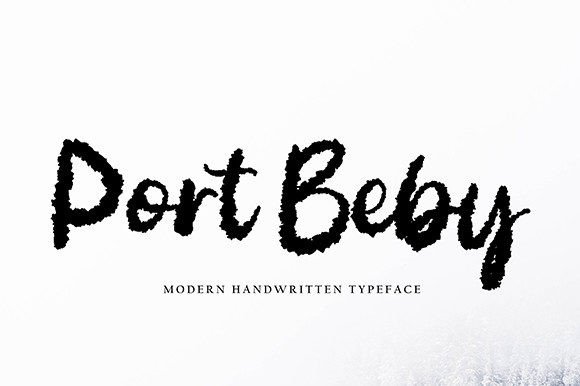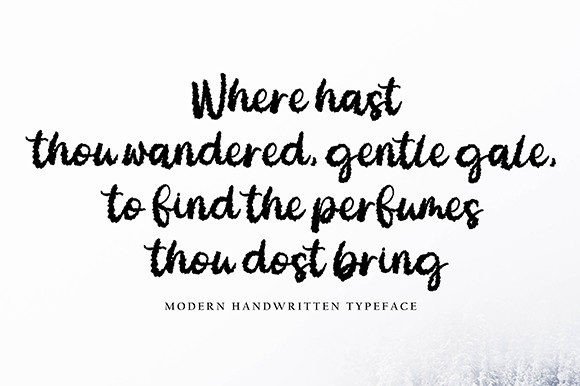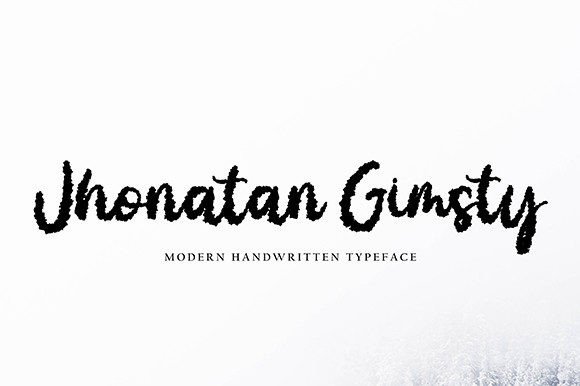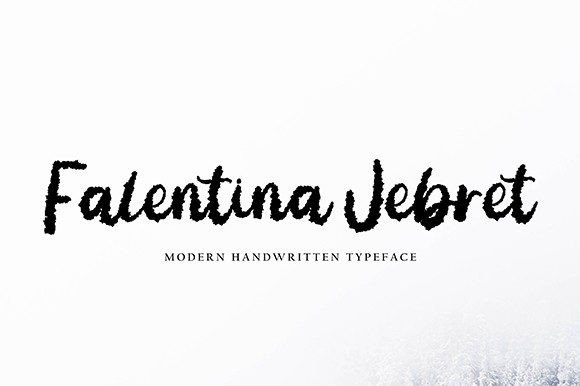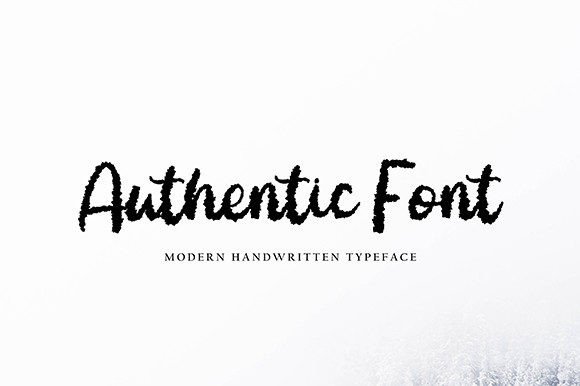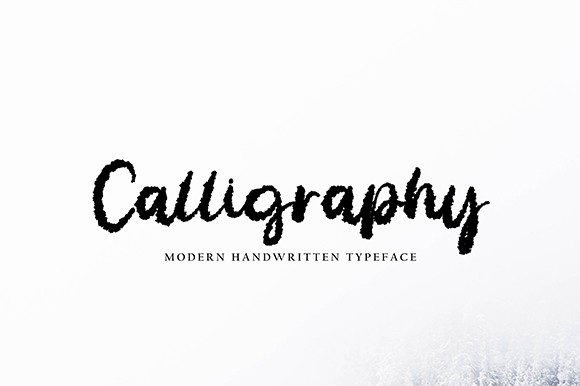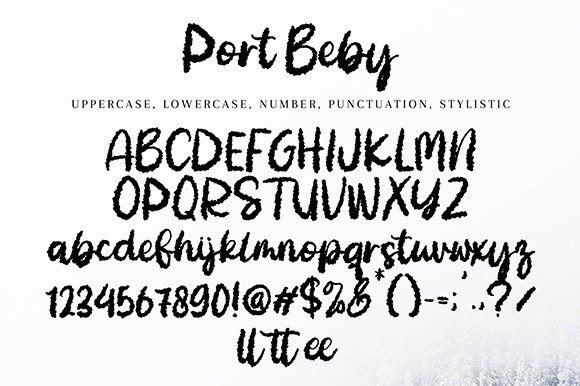
Port Beby Font
A Fun and Quirky Handwritten Script
Port Beby is a playful handwritten font that brings a dose of personality to any project. Its casual strokes and quirky letterforms make it feel friendly and unique. Whether you’re designing for kids, creative brands, or personal projects, Port Beby is a great way to stand out.
This font captures the charm of authentic handwriting while staying neat and professional. It feels approachable and full of character.
Port Beby is a versatile font you’ll reach for again and again. It works beautifully on greeting cards, children’s book covers, and birthday invitations. The fun style makes any message feel bright and cheerful.
Use it for logos, stickers, and product packaging if you want your brand to feel friendly and modern. Port Beby helps you create a visual identity that’s casual and memorable.
It also shines on social media graphics and blog headers. Whether you’re designing quotes, promotions, or event announcements, this font ensures your content feels inviting and unique.
You can even use Port Beby for classroom materials, labels, and planners to add a little extra joy to everyday tasks.
Clear, Fun, and Easy to Read
Despite its playful character, Port Beby is clear and legible in any size. The balanced spacing between letters keeps your text tidy and professional while still feeling relaxed.
For a clean look, pair Port Beby with a simple sans-serif font. Use it for titles and accents, and the sans-serif font for supporting text. This creates a balanced layout that feels modern and fresh.
To make Port Beby shine, use light backgrounds and bright colors. Soft pastels, warm yellows, or sky blue work beautifully with this font’s cheerful style.
When designing invitations or event materials, consider adding playful illustrations or doodle elements. This complements the handwritten feel and makes your designs stand out even more.
On social media, leave plenty of white space so Port Beby’s unique shapes can take center stage. Keep your layout simple and clean to maintain readability.
Think about the feeling you want to create. Port Beby is perfect for projects that need to feel happy, relaxed, and approachable.
Port Beby isn’t just a handwritten font—it’s a creative tool that helps you express fun and positivity. From logos to personal stationery, it brings a warm and playful touch to every design.
Adding Port Beby to your font collection means you always have a versatile option for bright, cheerful projects. Whether you’re working on branding, cards, or social content, this font adapts effortlessly to your vision.